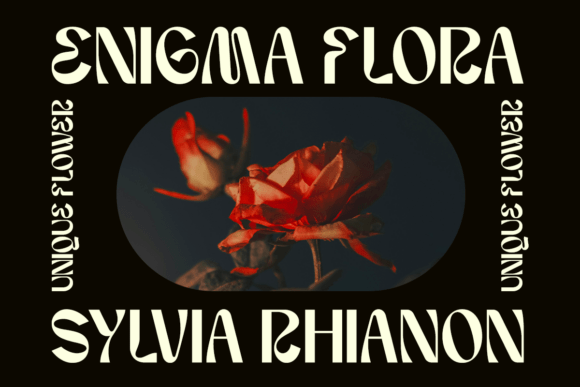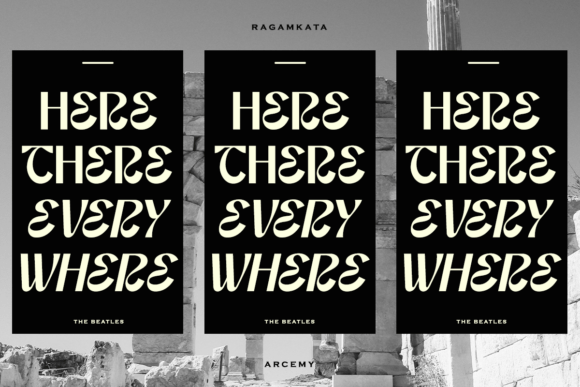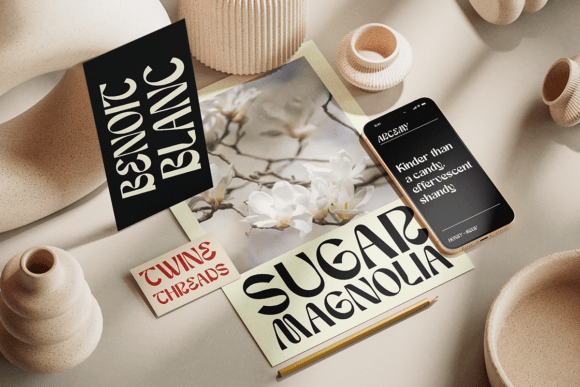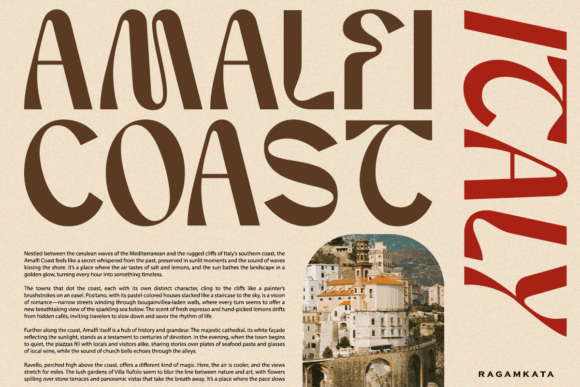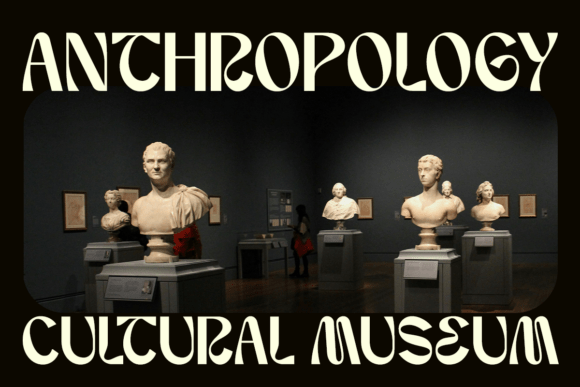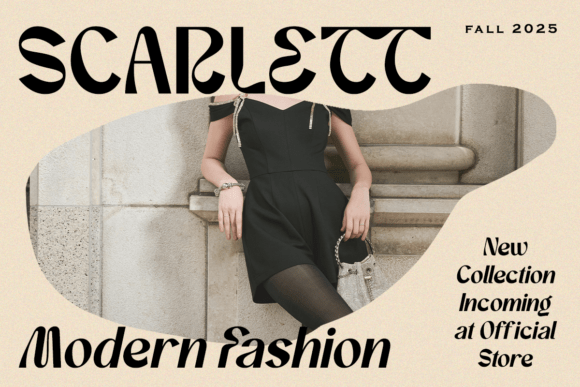
Unleashing the Power of a Perfect Font: Introducing Arcemy
Have you ever been stuck on a design project, searching for the perfect font to bring your vision to life? The frustration of scrolling through endless options, only to find nothing quite fits the tone and style you’re aiming for. That’s where Arcemy Font comes in – a game-changing display sans font designed to breathe new life into your designs.
With its unique letter proportions and carefully curated selection of alternates, Arcemy Font offers unparalleled versatility for a range of design projects. Whether you’re crafting headlines, titles, or branding materials, this font is the perfect blend of retro charm and modern sensibility. For designers, Arcemy Font is a valuable addition to their toolkit, providing the perfect touch to elevate their projects and leave a lasting impression.
Arcemy Font Key Features
- Font Family: A unique, custom-designed font family with multiple weights and styles, including regular, bold, italic, and bold italic.
- Character Set: Supports a wide range of languages, including Latin, Cyrillic, and Greek alphabets, as well as many non-Latin scripts.
- Unique Characteristics: Features a distinctive, hand-drawn aesthetic with subtle texture and organic feel, making it ideal for creative and design-focused applications.
Arcemy Font Review
As a designer, I was excited to dive into Arcemy Font, a modern sans-serif typeface designed to capture a sense of elegance and sophistication. ✨ Here are my thoughts on what works well and what doesn’t.
- ✨ Unique Design: Arcemy Font has a distinct, modern aesthetic that sets it apart from other sans-serif fonts.
- ✨ High Legibility: The font is highly legible, even at small font sizes, making it perfect for body text.
- ✨ Customizable: Arcemy Font comes in multiple weights and styles, allowing designers to create a wide range of visual effects.
Limitedations:
- ⚠️ Limited Support: Arcemy Font is not as widely supported as some other fonts, which can cause compatibility issues in certain situations.
- ⚠️ Limited Expressiveness: While the font is highly legible, it may not be the best choice for conveying strong emotions or expressing a particular tone.
Overall, I think Arcemy Font is a solid choice for designers looking for a modern, elegant sans-serif typeface. While it may have some limitations, its unique design and high legibility make it a valuable addition to any designer’s toolkit.
Getting the Most Out of Arcemy Font
To get the most out of Arcemy Font, try the following tips:
- Combine Arcemy Font with other fonts to create a unique and eye-catching design.
- Use Arcemy Font in bold or italic styles to add emphasis to your text.
Arcemy Font is suitable for a variety of design applications, including:
- Social media graphics and posts.
- Business cards and brochures.
- Presentations and reports.
Alternatives to Arcemy Font
Great Vibes Font is a modern, elegant script font that is perfect for adding a touch of sophistication to your designs. It’s ideal for use in branding, advertising, and editorial content. When to use: For designs that require a high-end feel and a touch of elegance.
Comparison to Arcemy Font: While both fonts have a modern and elegant feel, Great Vibes Font is more refined and polished. Arcemy Font has a more playful and whimsical touch, making it suitable for more casual designs.
Pacifico Font is a beautiful, cursive script font that is reminiscent of the classic fonts of the past. It’s perfect for use in branding, packaging, and editorial content. When to use: For designs that require a touch of warmth and elegance.
The recommended font size for optimal readability with the Arcemy Font is between 12pt and 24pt, depending on the specific use case and intended audience. For digital applications, a font size of 14pt to 18pt is generally suitable.
Q: Does the Arcemy Font support Unicode characters?
Yes, the Arcemy Font supports a wide range of Unicode characters, including Latin, Cyrillic, and Greek scripts. This allows for seamless integration with languages that use these scripts, making it an excellent choice for multilingual designs.